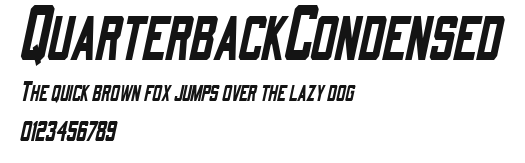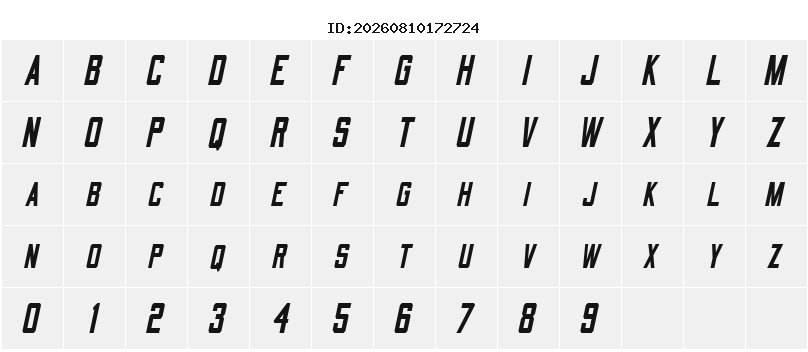
QuarterbackCondensed Preview
• Font Name: QuarterbackCondensed
• Font Style: Oblique
• Font ID: SWFTE:QuarterbackCondensed Oblique
• Full Font Name: QuarterbackCondensed Oblique
• Version: Rev. 003.000
• PostScript Name: QuarterbackCondensedObliqueSWFTE
• Character Count: 70
About QuarterbackCondensed.ttf
QuarterbackCondensed.ttf is a modern, elegant sans-serif font designed for ultimate readability and visual harmony. Perfect for branding, headlines, web design, and print materials.